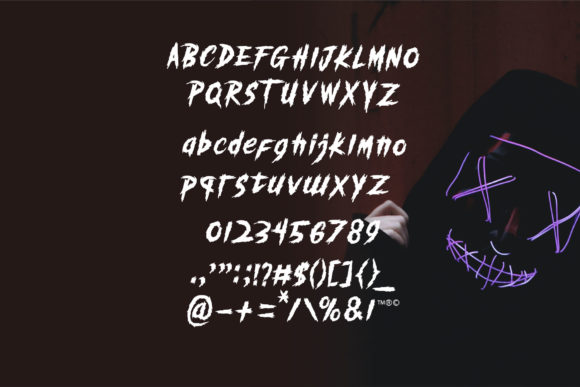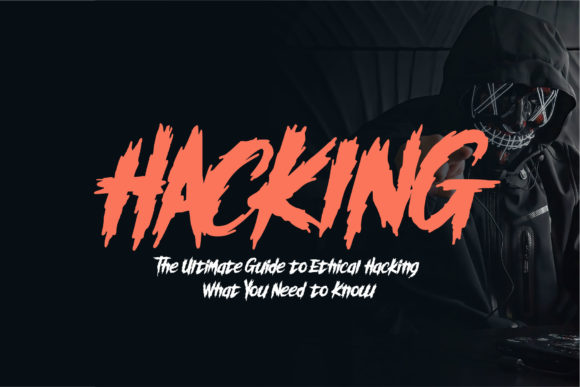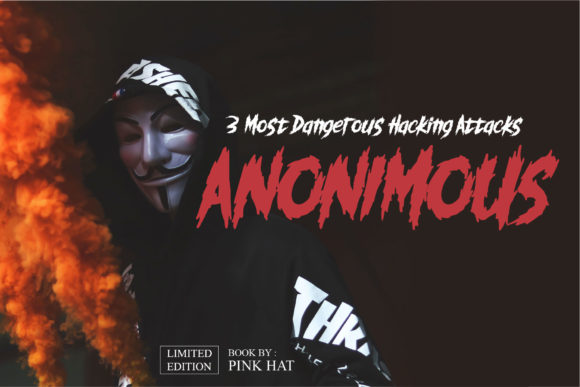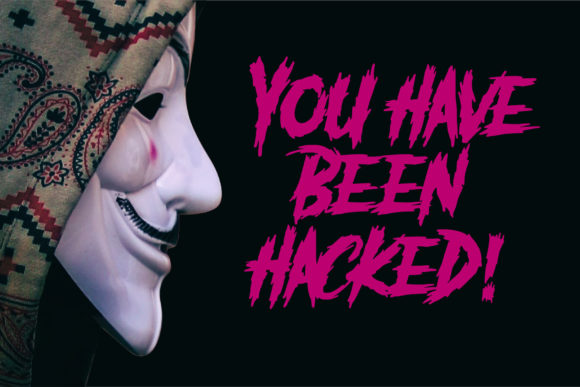
Embracing the Dark Side: A Deep Dive into Darkmode – Horror Gothic Typeface Font
I’ll never forget the night I was working on a horror movie poster project, and my client asked for a font that would make their audience shiver. I scoured the internet, but nothing seemed to fit the bill. That was until I stumbled upon Darkmode – a gothic, scary, and horror-inspired typeface that instantly sent chills down my spine. In this article, I’ll share my journey with Darkmode, its features, and how to make the most of this incredible font.
As a designer, I was blown away by Darkmode’s unique features. Here’s what I love:
- ✨ Instantly creepy and gothic vibe: Darkmode’s hand-drawn brush style gives it a messy, instant look that’s perfect for horror-themed projects.
- ✅ Versatile and adaptable: This font is perfect for a wide range of projects, from film titles and book covers to logos and event invitations.
- 🔥 Highly legible: Despite its gothic style, Darkmode is surprisingly easy to read, even in smaller sizes.
However, I did notice a few quirks:
- 🤔 Limited use in formal contexts: Darkmode’s bold, gothic style may not be suitable for formal or professional projects that require a more traditional look.
- ⚠️ Requires careful kerning: As with any font, kerning is crucial to ensure Darkmode looks its best. Be prepared to adjust the spacing to get the desired effect.
Darkmode was inspired by the darker side of media – gothic, scary, protest, and horror. The designer aimed to create a font that would evoke a sense of unease and foreboding, perfect for projects that require a bold, attention-grabbing look. By combining a hand-drawn brush style with gothic influences, Darkmode was born.
Q: What type of projects is Darkmode best suited for?
A: Darkmode is perfect for horror-themed projects, such as film titles, book covers, logos, and event invitations.
Q: Is Darkmode available in different weights or styles?
A: Darkmode comes in a single weight, but its OpenType features and glyphs offer a range of stylistic alternates to experiment with.